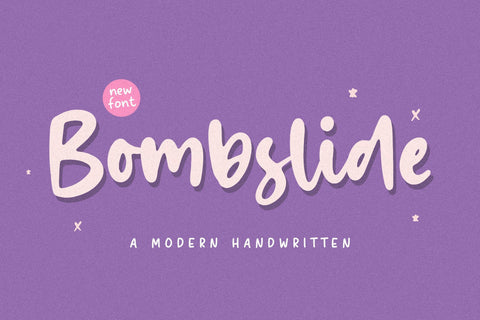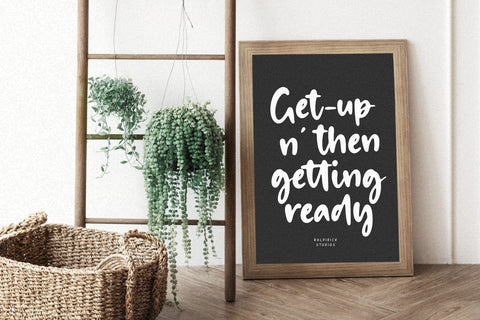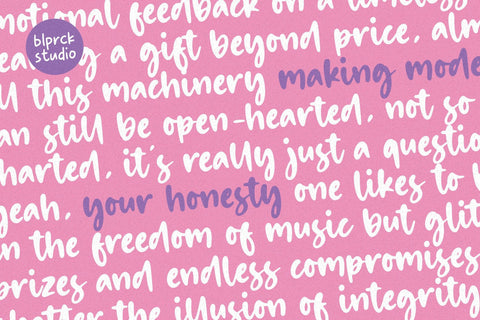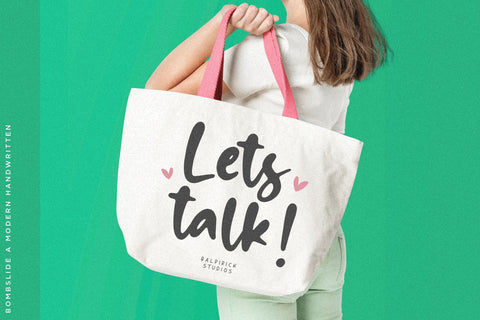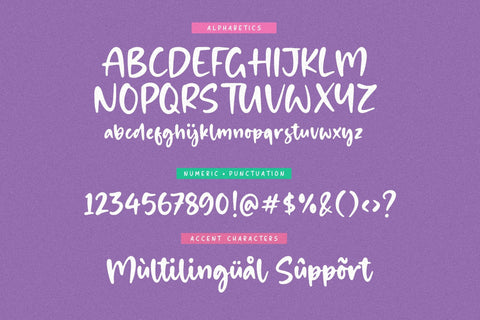
Bombslide a Modern Handwritten Font
Bombslide is a Modern Handwritten Font.
Whether you’re using it for crafts, digital design, presentations, or making greeting cards, this font has the potential to become your favorite go-to font, no matter the occasion!